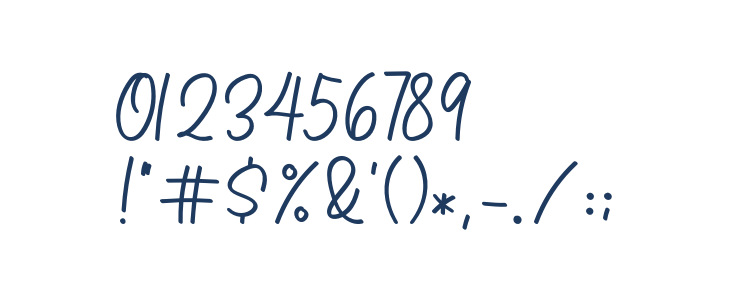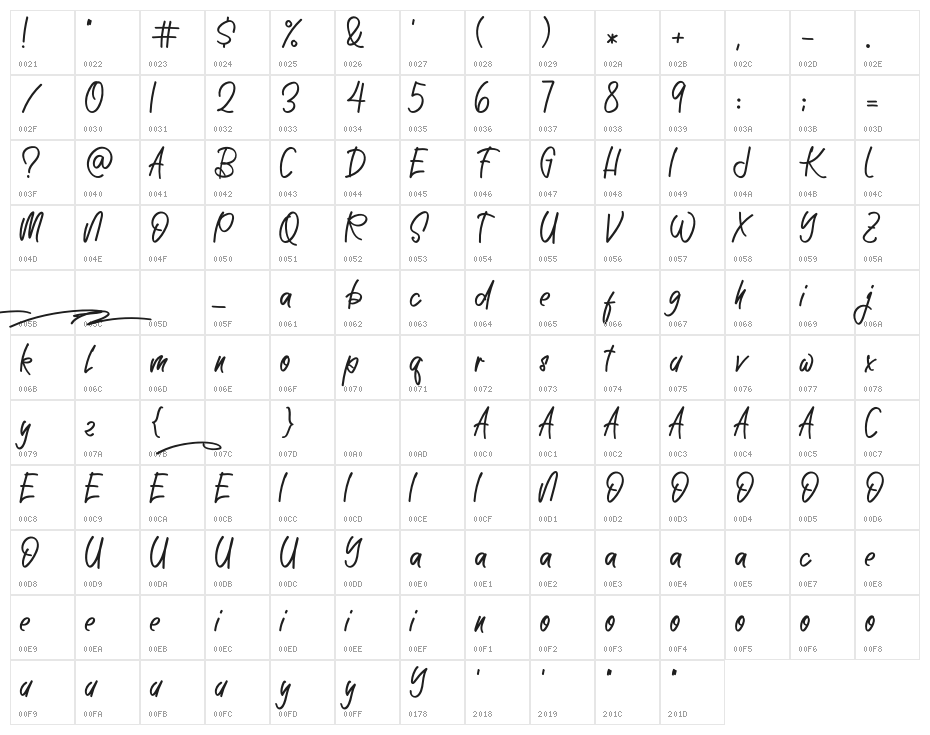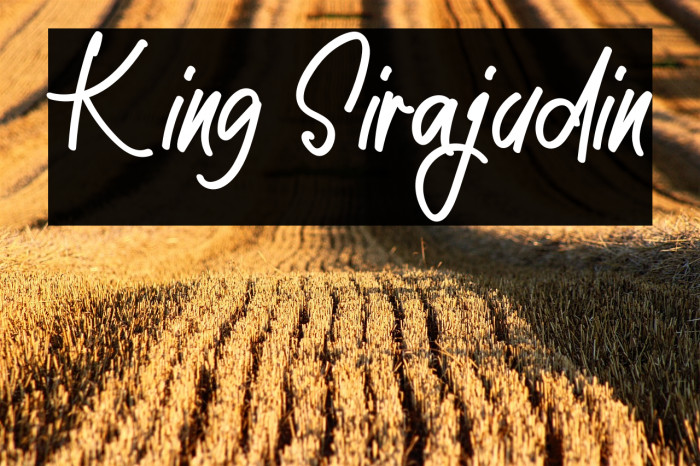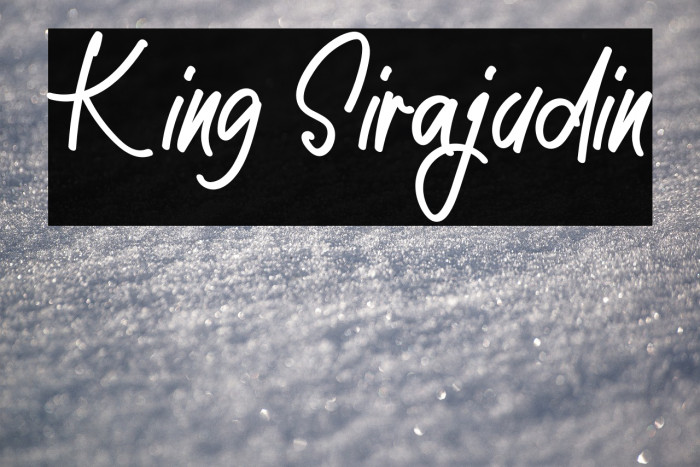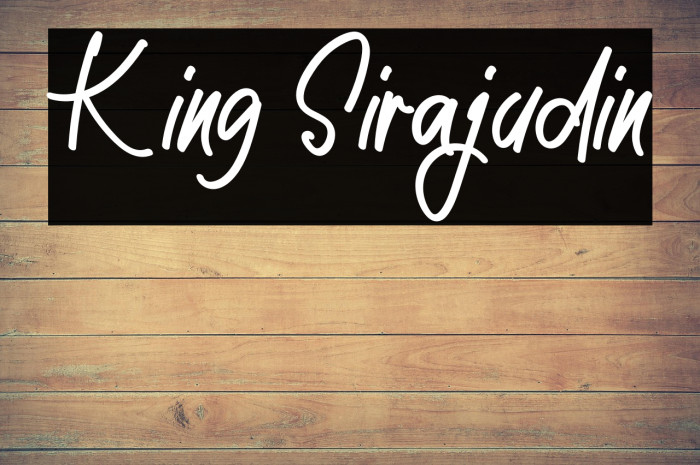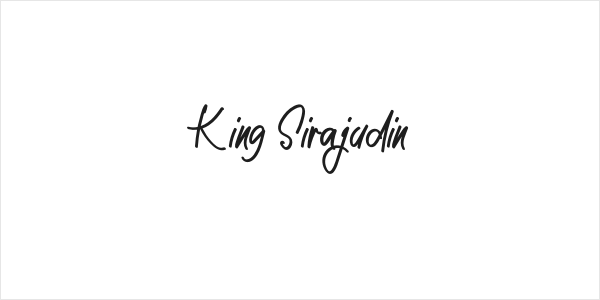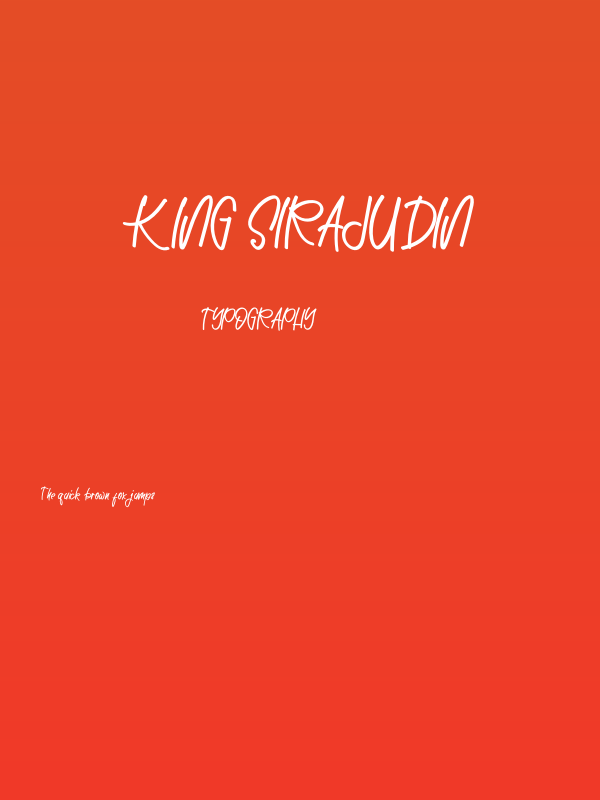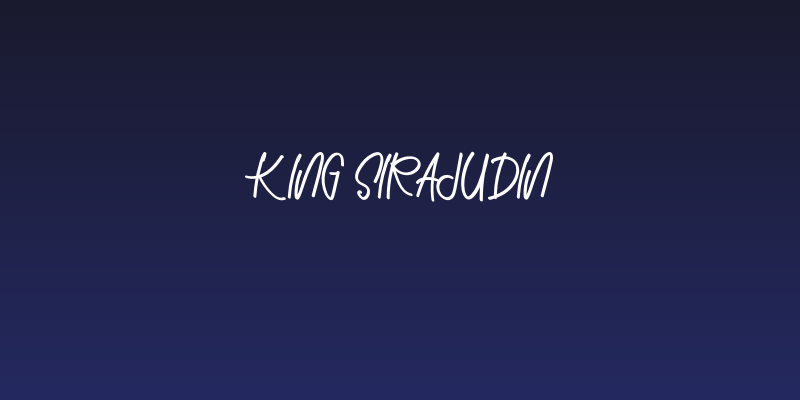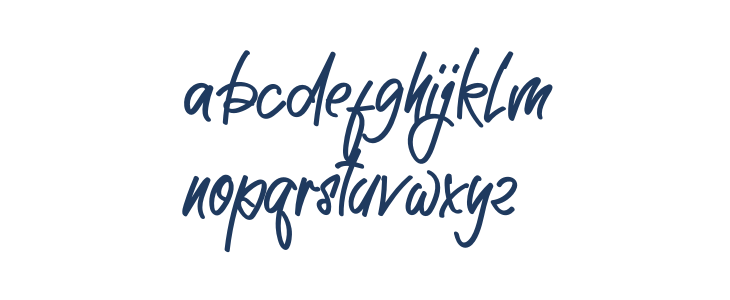
King Sirajudin Font
King Sirajudin Description
This font features a lively and energetic script style, characterized by its fluid and connected letterforms. The uppercase letters exhibit a playful yet elegant flair, with varying stroke widths that add a dynamic rhythm to the text. The lowercase letters maintain a consistent flow, enhancing readability while retaining a sense of individuality in each character. Numbers and special characters are designed to complement the overall style, ensuring a cohesive look across different uses. The font's informal and handwritten appearance makes it suitable for projects that require a personal touch.
| Proposed Projects | Ideal for greeting cards, invitations, personal branding, and creative projects that require a handwritten touch. |